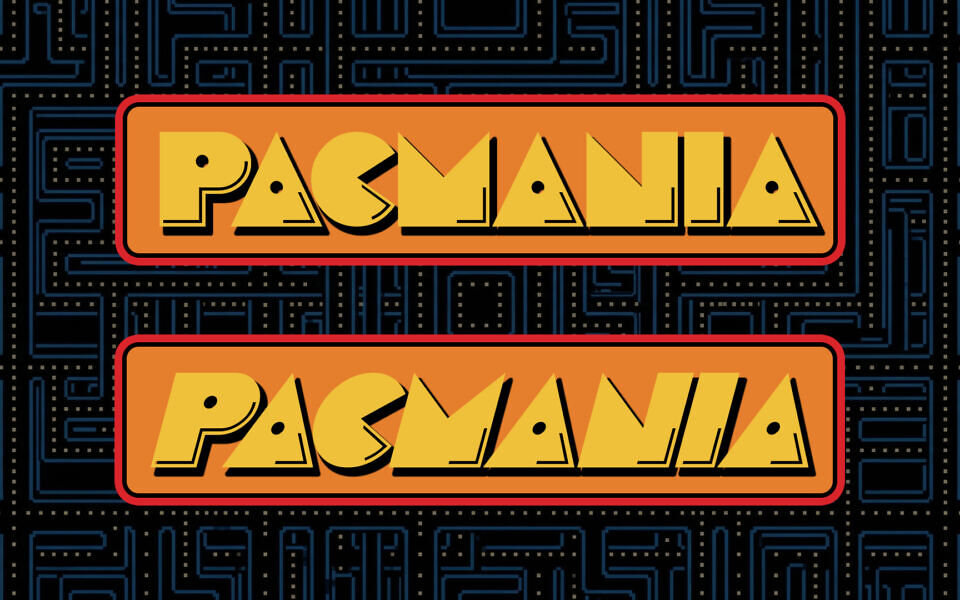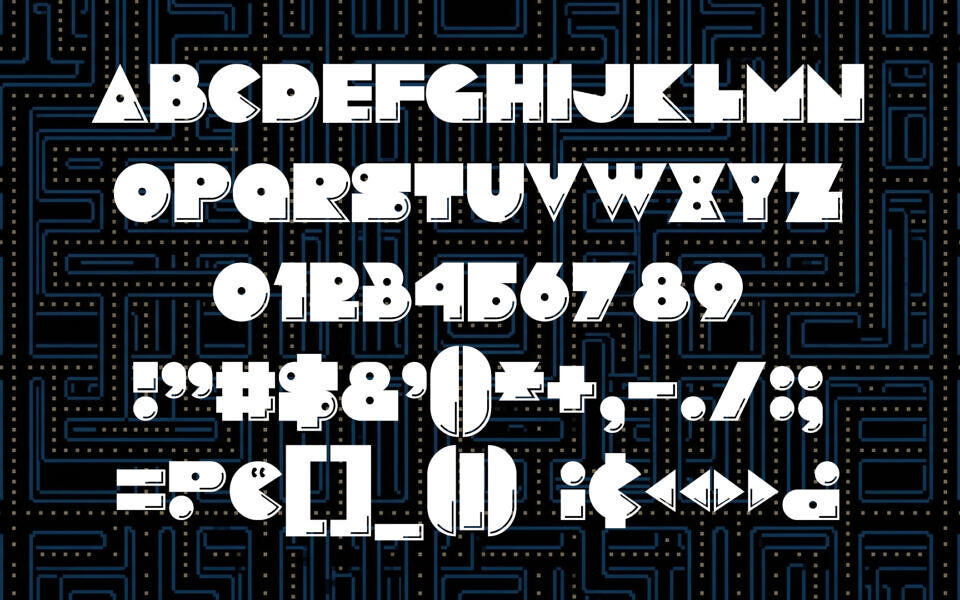
Pacmania Font
Pacmania is a bold, retro-inspired display font based on the original logos of the iconic Pac-Man franchise from Namco Inc. Featuring geometric shapes, thick strokes, and playful cut-out details, it captures a nostalgic 80s gaming vibe. Its eye-catching, blocky characters make it ideal for logos, posters, and fun-themed designs.
The font includes a full alphabet with extended punctuation and two styles (regular, italic), ensuring versatility while maintaining its distinctive, arcade-style personality.